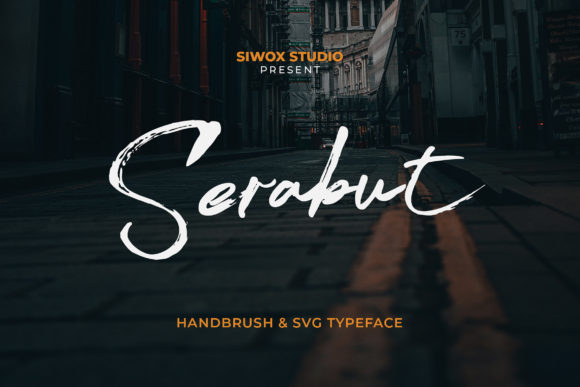
Meet Serabut - the hand-brushed script font that will ignite your imagination and transform your creative projects into breathtaking realities. Designed with an air of effortless elegance and a touch of modern charm, Serabut is more than just a font - it's an artistic expression that will captivate your audience and leave them spellbound.
Unleash the beauty of handwritten artistry with Serabut. Its fluid strokes and organic texture evoke a sense of authenticity and warmth, making it the perfect choice for wedding invitations, branding projects, and any design that calls for a touch of timeless sophistication.
With Serabut, you'll discover a font that's as versatile as it is captivating. Whether you're crafting elegant logos, creating stunning social media graphics, or designing unforgettable marketing materials, Serabut will elevate your creations to new heights.
Immerse yourself in a world of creativity with Serabut. Let its graceful curves and playful flourishes inspire you to create designs that resonate with your audience. From heartfelt wedding programs to eye-catching branding elements, Serabut will transform your ideas into visual masterpieces.
Experience the magic of Serabut and watch your creative visions come to life. Its enchanting beauty and endless possibilities will ignite your passion for design and leave you craving more. Embrace the art of hand-lettering and make Serabut your go-to font for projects that demand elegance, sophistication, and a touch of whimsy.